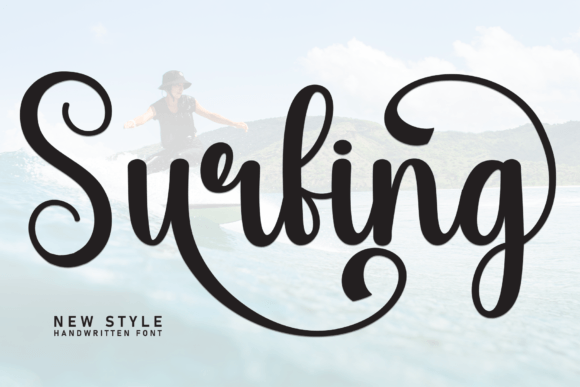
Journey into the world of waves and wind with Surfing Font, a captivating script font family that will add a touch of beachy charm to your designs. Inspired by the graceful curves of surfing and the laid-back vibes of the beach, Surfing Font is a perfect choice for projects that evoke a sense of freedom and fun.
With its smooth, sweeping strokes and playful characters, Surfing Font captures the essence of handwritten notes penned on sandy shores. This delightful font is perfect for adding a personal touch to wedding invitations, cards, posters, and any other design that calls for a handwritten feel.
Dive into the world of endless possibilities with Surfing Font. Its versatility makes it suitable for a wide range of projects, from playful logos and branding designs to eye-catching social media posts and website headers. Unleash your creativity and let Surfing Font guide you towards designs that radiate warmth and charm.
Surfing Font is the ultimate choice for designers seeking fonts that embody the spirit of adventure and carefree moments. With its unique style and captivating details, this font will transform your designs into works of art that resonate with your audience.